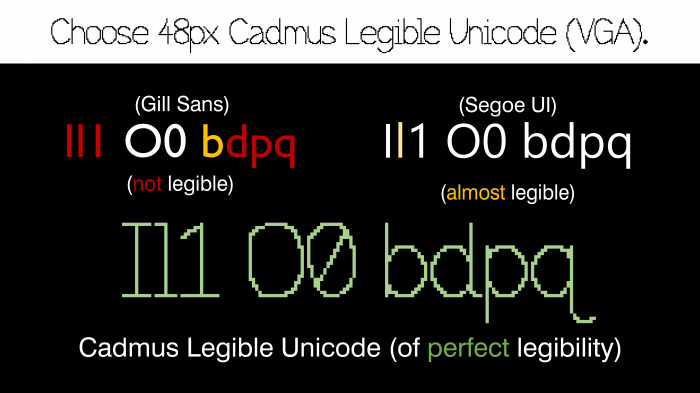
• Cadmus Legible Unicode (48px) is a mini-Unicode handwritten pixel font, which is only intended for accessibility usage and legibility, with distinguishable/hyperlegible looks, and is VGA-styled. Also useful for AWTL/AOSTL usage.
Looks mini-unicoded, but I'll take it! Well done, mister! 9/10!
For extra credit, I rate it 9/10! I admire your handwriting, you made it almost legible!
This looks great! Well done!
This font is loosely based on inspiration to the original Cadmus Simple and Cadmus Original (the one where it has loose spacing), but I made it to look distinguished and legible to not give in any confusion to some letters and numbers that look the same (examples are I, l, 1, O, 0, b, d, p, q, etc.).
The serif of the gha (NOT oi, even though it's mistakenly named such in Unicode) looks pretty nice, especially for sans-serif… Also the letter spacing could be widened by 1 or 2 units more so it doesn't feel pretty tight
I'd recommend increasing the size of the diacritics, some (like the over ring, for example) look too tiny and are impossible to read in small sizes.